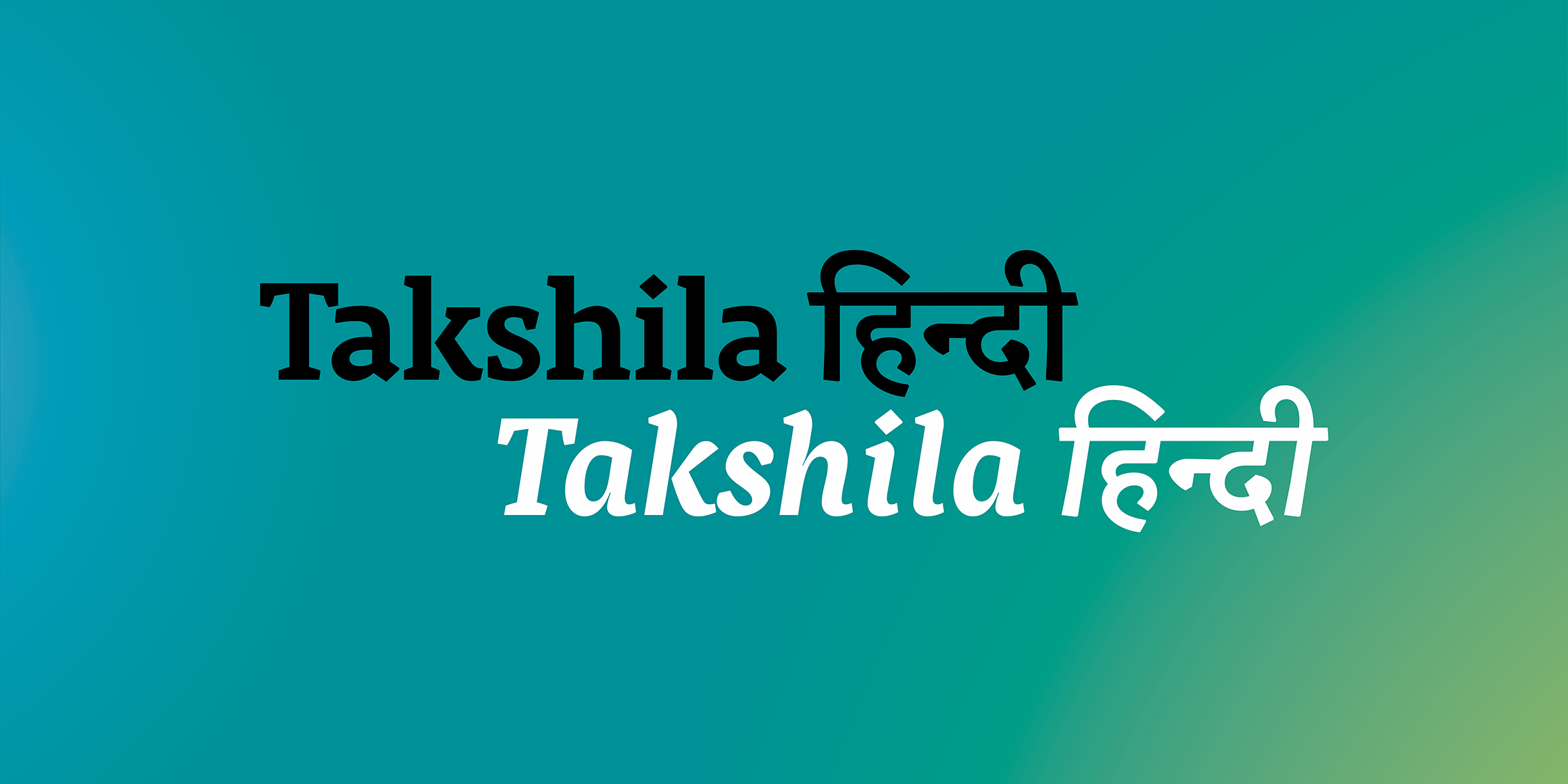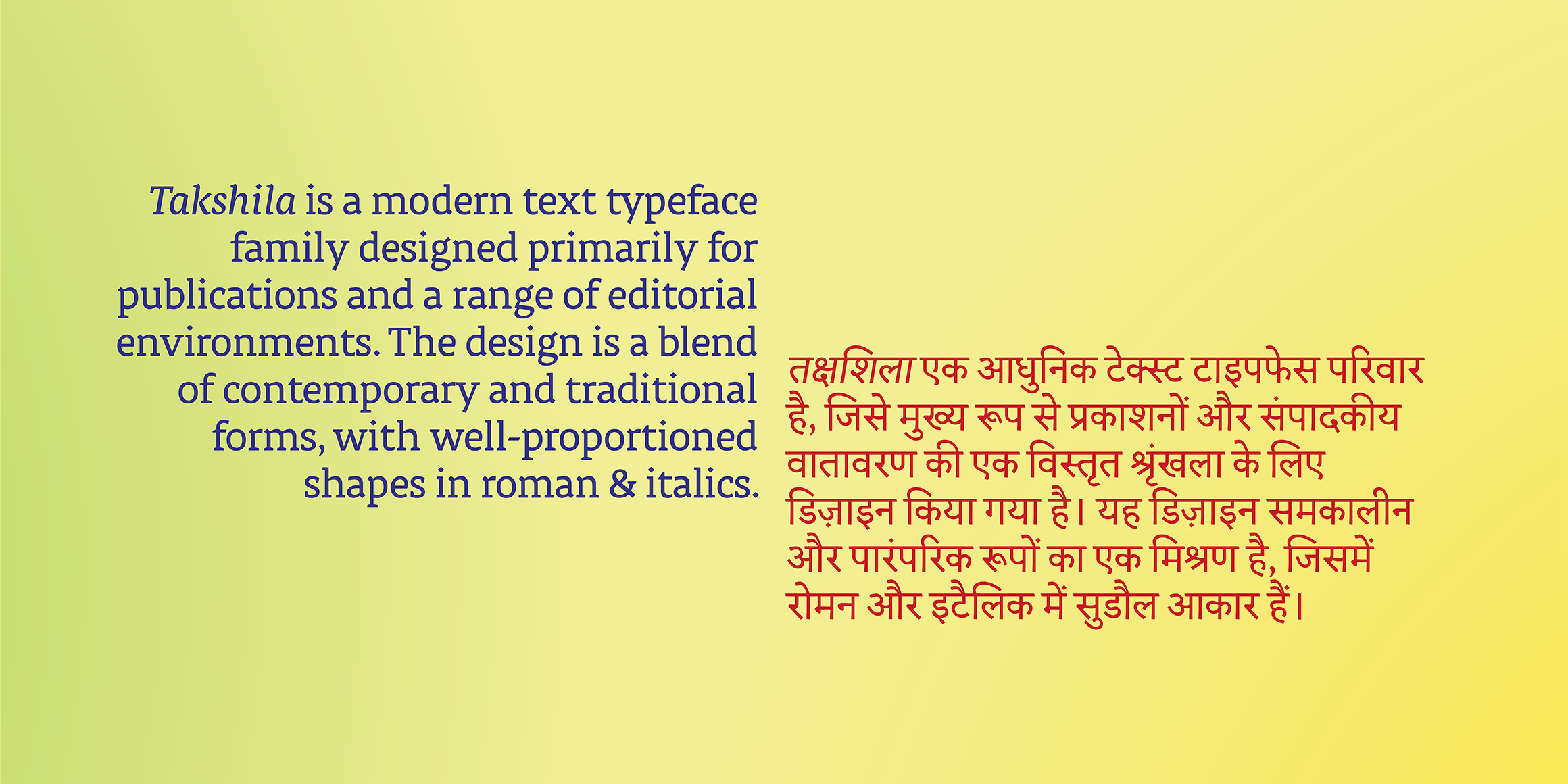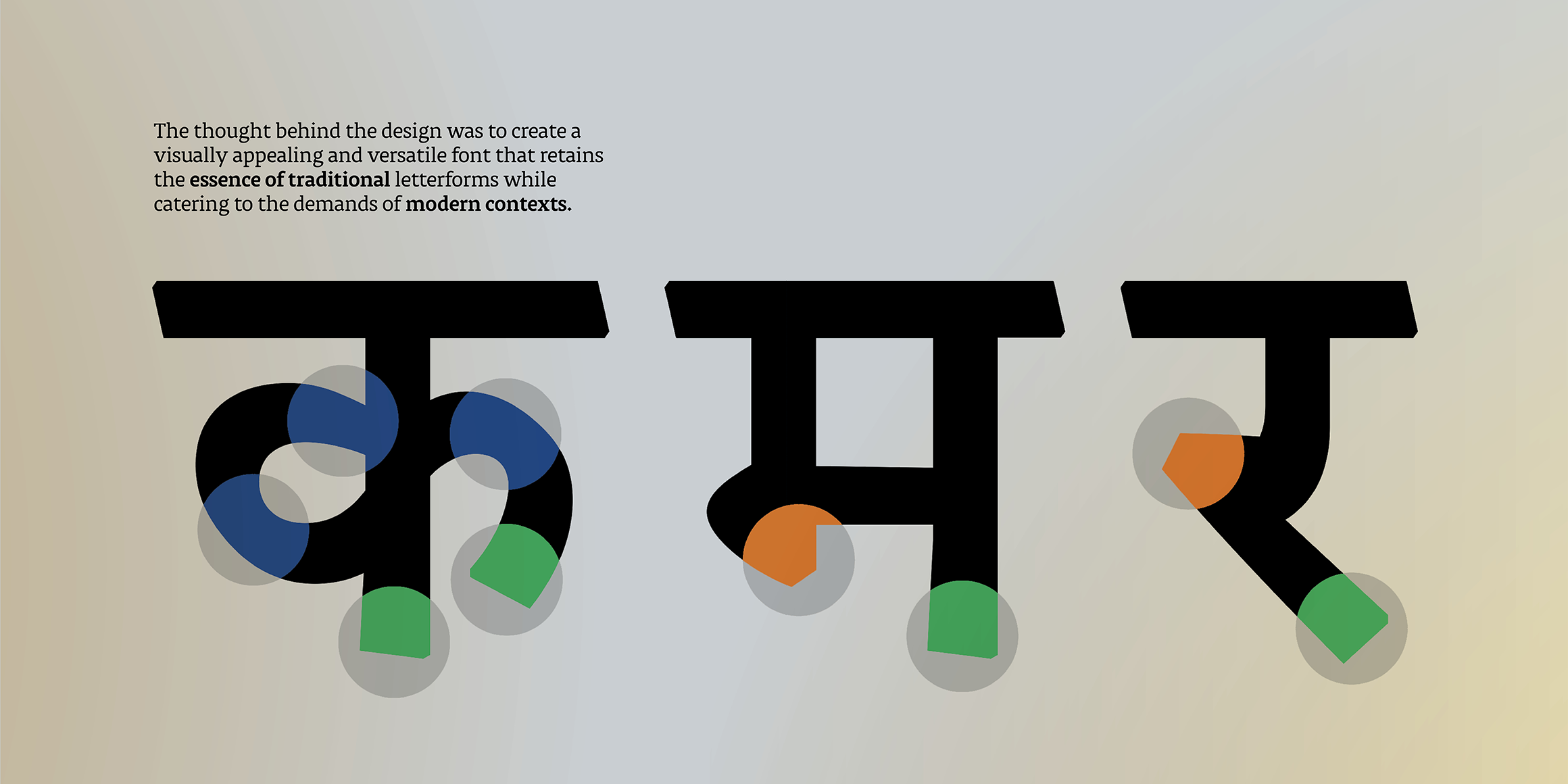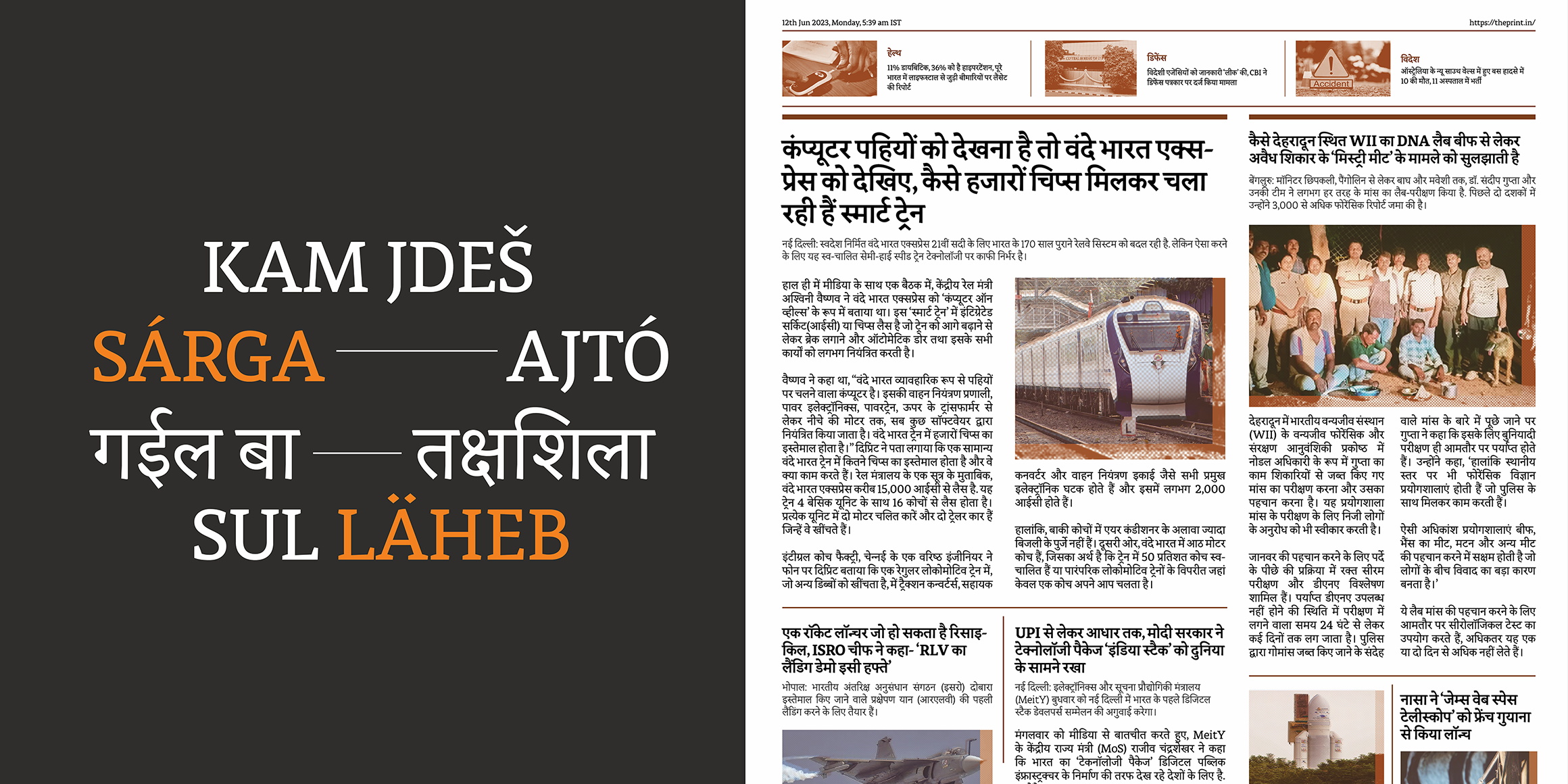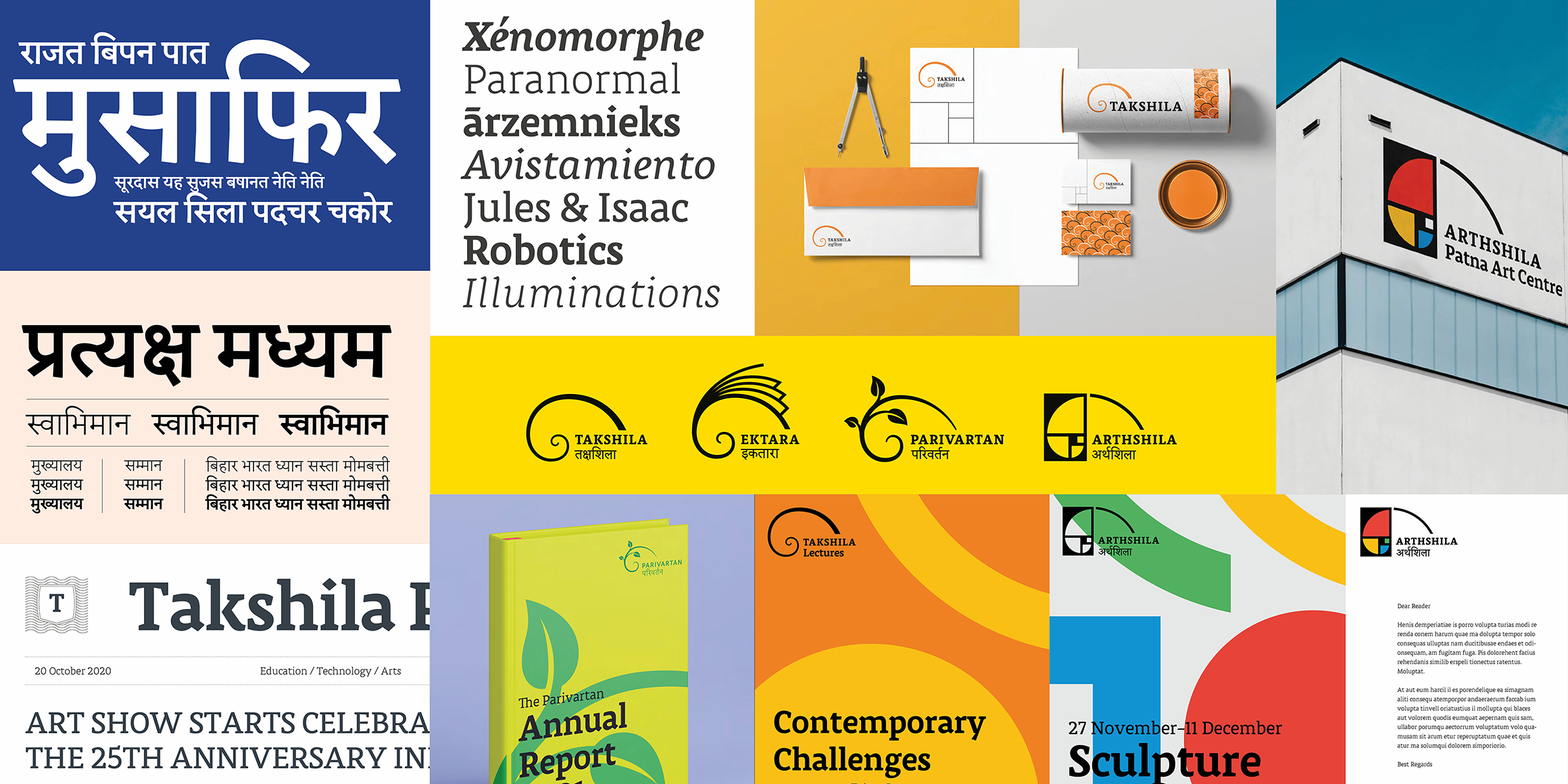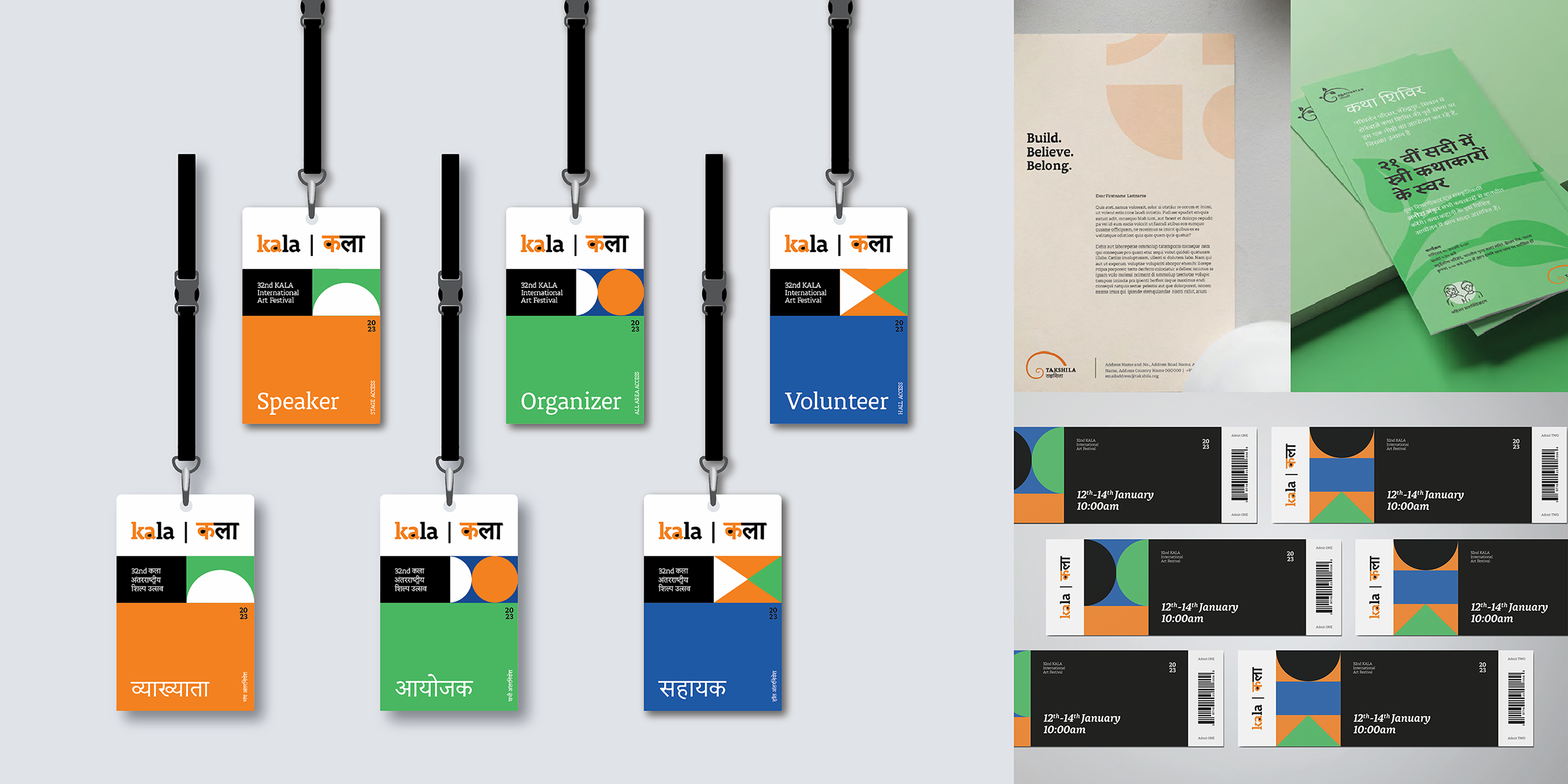
Takshila हिन्दी
Takshila Hindi is the companion Devanagari typeface to Takshila Latin — a modern text typeface family designed primarily for publications and a range of editorial environments. The design is a blend of contemporary and traditional forms, with well-proportioned shapes in roman & italics. Its letterforms are crafted with precision, ensuring excellent readability at small text sizes while retaining elegance at display sizes. The family includes a range of weights and styles, making it versatile for books, magazines, newspapers, and digital platforms alike.